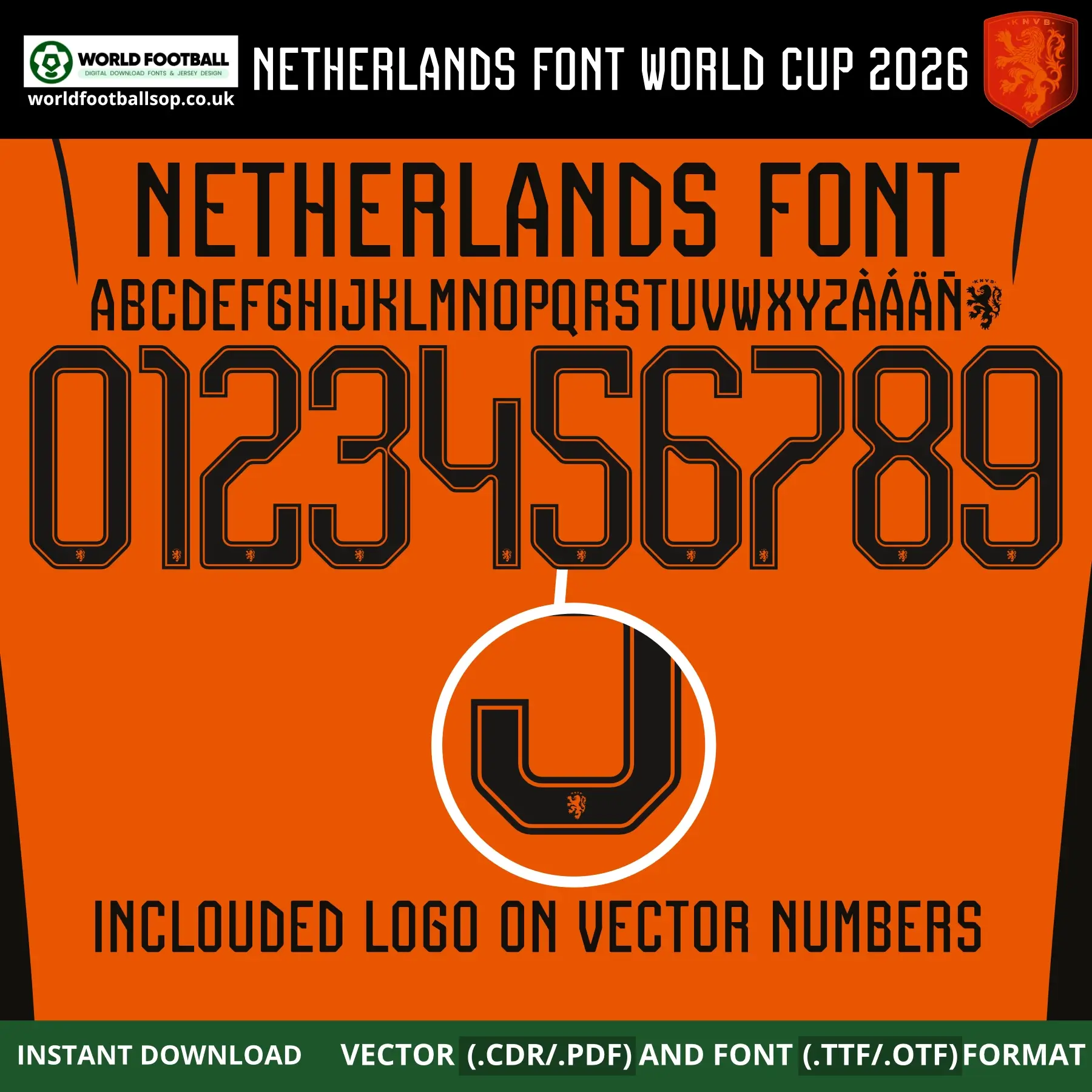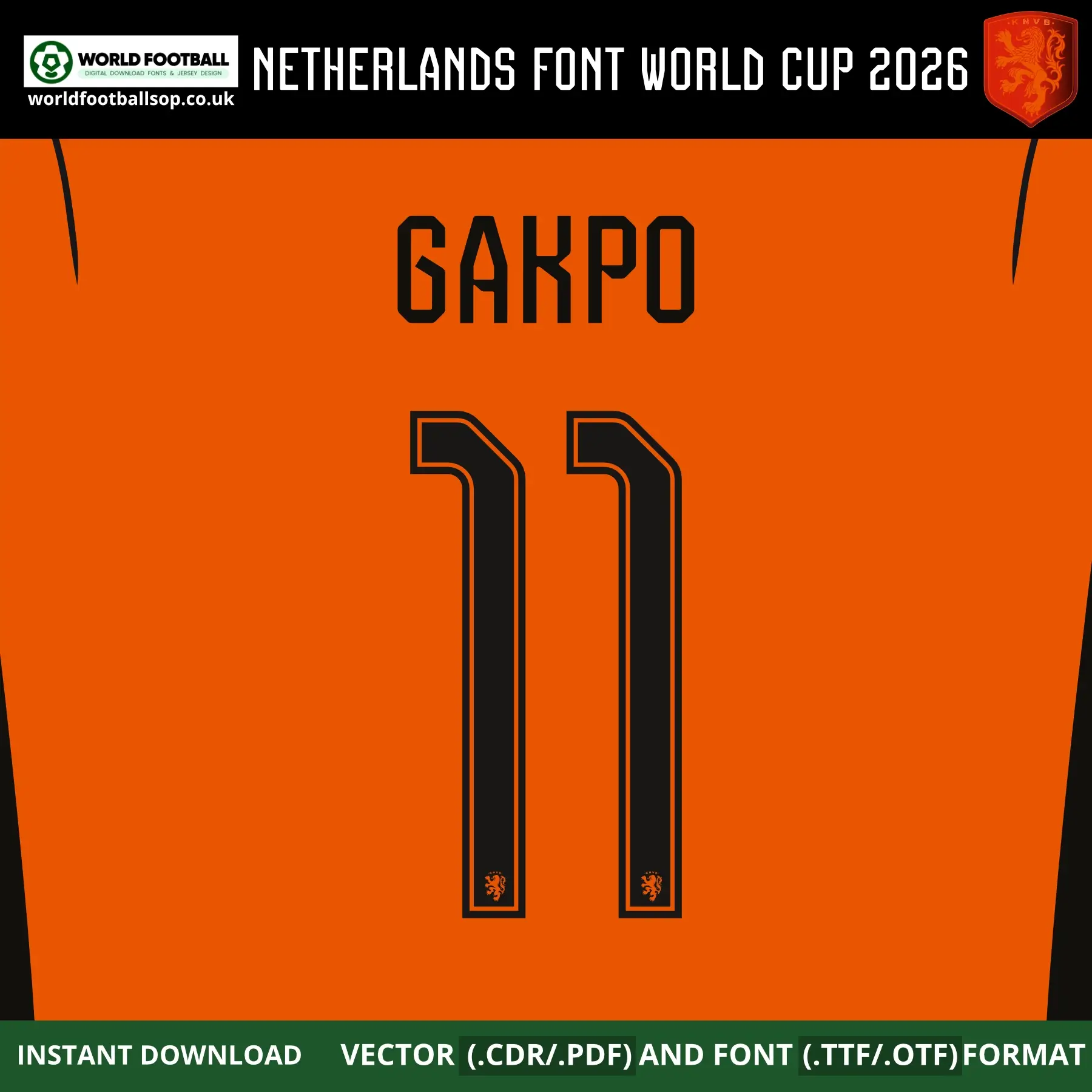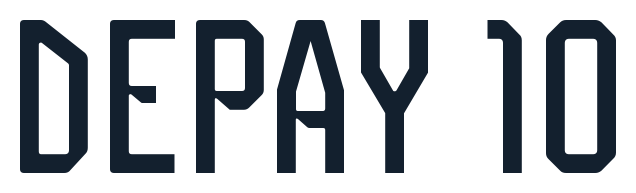
Netherlands Font World Cup 2026 - Oranje Power Typography
The Netherlands Font World Cup 2026 pack captures Nike's official bold, block-style font for Oranje's classic orange home shirt. Your covers show tall, strong characters with clean lines and sharp corners that perfectly match the aggressive, attacking style of the Dutch national team. The black digits create maximum contrast against the vibrant orange background with the iconic KNVB lion crest integrated into vector numbers.
Perfect for kit makers, This designers and Oranje fans, this Font Football Design delivers accurate Netherlands 2026 World Cup namesets for Gakpo, De Jong, Van Dijk and the full squad.
Complete A-Z alphabet with Dutch accents (Ä Å Ñ Ö Ü Ž)
Numbers 0-9 optimized for jersey backs and shorts
Preview layouts: GAKPO 11 Nameset, full alphabet/numbers, full numeric and alphabet sheet, and zoomed number detail showing the copper shadow and crest.
Design highlights
Oranje identity: Deep black outlines on vivid orange echo the classic Netherlands home look and stand out on any jersey.
Hexagon-inspired edges: Subtle angled corners and inner lines give the numbers a modern, technical feel without losing readability.
Slim but strong: Condensed shapes save space on the shirt while still looking powerful on TV and in print.